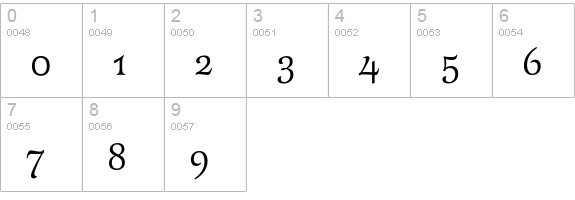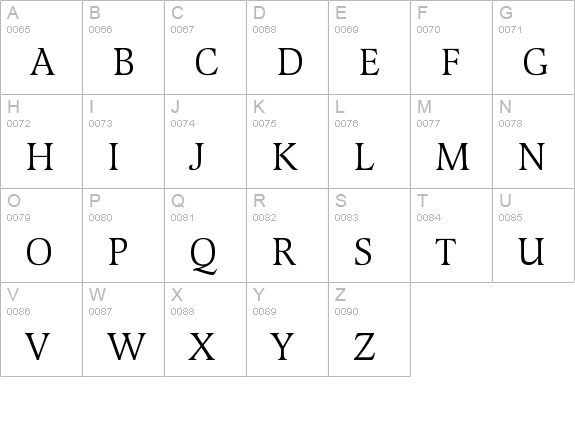
LatienneEF-RomanSC Font Details
LatienneEF-RomanSC is a stunningly elegant font that exudes sophistication and class. With its delicate serifs and graceful curves, this typeface captures the essence of refined beauty. Its smooth lines and balanced proportions lend a sense of harmony and grace to any design. This versatile font is perfect for a wide range of applications, from editorial layouts and branding to wedding invitations and luxury packaging. Its timeless appeal makes it an ideal choice for projects that require a touch of elegance and charm. What makes LatienneEF-RomanSC even more appealing is that it is available for free download at FontsMarket.com. This means that designers and creatives alike can enjoy its exquisite beauty without any cost. Whether you are a professional designer or a hobbyist, this font is a valuable addition to your collection. The freely available download of LatienneEF-RomanSC at FontsMarket.com allows you to explore its full potential and unlock your creative vision. Its extensive character set and various weights offer endless possibilities for creating visually stunning designs. Experience the sheer beauty and versatility of LatienneEF-RomanSC for yourself. Download it for free at FontsMarket.com and elevate your design projects to new heights of elegance and sophistication.